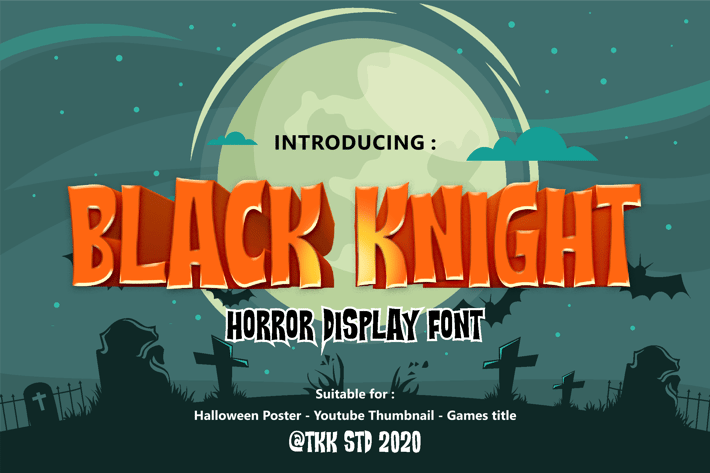
Black Knight - Mystery Gaming and Movie Font
BLACK KNIGHT - Mystery Gaming and Movie Font
Black Knight is a horror display typeface designed with blocky, shadowed forms and bold contrast, evoking the classic thrill of haunted tales, spooky nights, and vintage fright flicks. Its dramatic, jagged edges and chunky proportions reflect a playful yet sinister personality—perfect for seasonal themes and creepy compositions. This expressive typeface walks the line between fun and fear, making it a standout for Halloween, gaming intros, and eerie brand visuals.
Whether you're crafting a Halloween flyer, developing a spooky mobile game UI, or designing YouTube thumbnails for horror content, Black Knight delivers instant fright-factor with visual bite. Its exaggerated letterforms ensure attention-grabbing headers in print or screen, while its quirky menace adds just the right edge for trick-or-treat branding, eerie packaging, or seasonal campaigns.
Key Features :
Why Creatives Choose Black Knight:
✦ Bold horror vibe with chunky, playful energy
✦ Thick strokes and tight spacing for maximum visibility
✦ Great for spooky titles, games, Halloween merchandise
✦ Letterform balance that adds urgency and eerie tone
✦ Suitable for print, web, and video applications